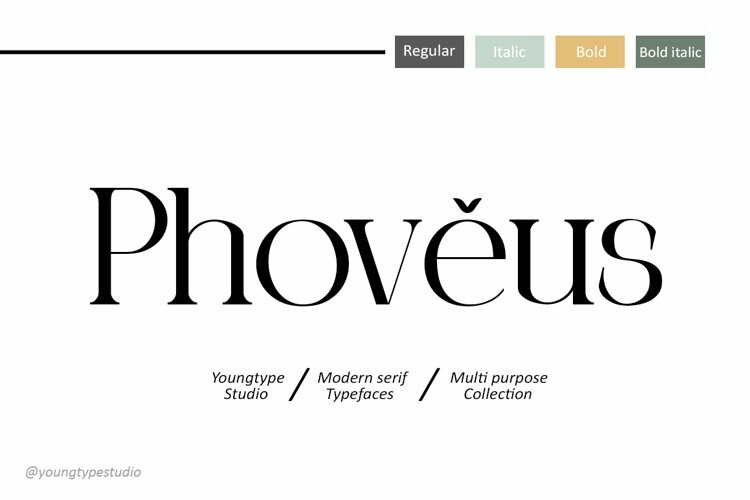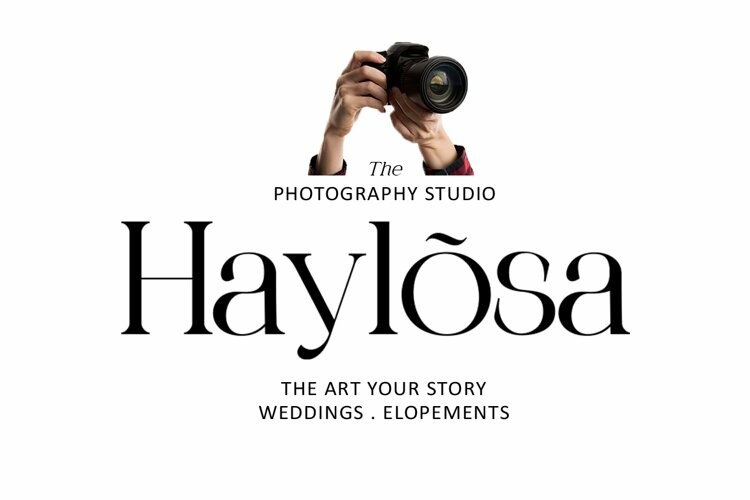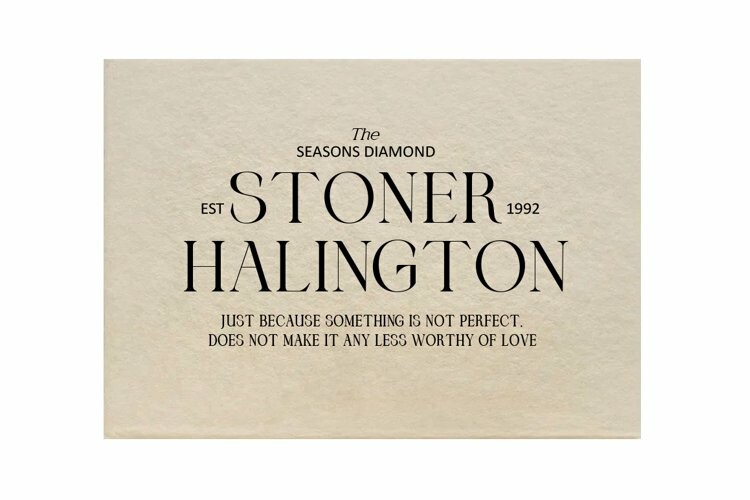
Phoveus Font
Phoveus FontPhoveus Modern Serif, This professional resource is also powerful because each font has its own magical design. Comes with four versions Regular, Italic, Bold, Bold Italic.